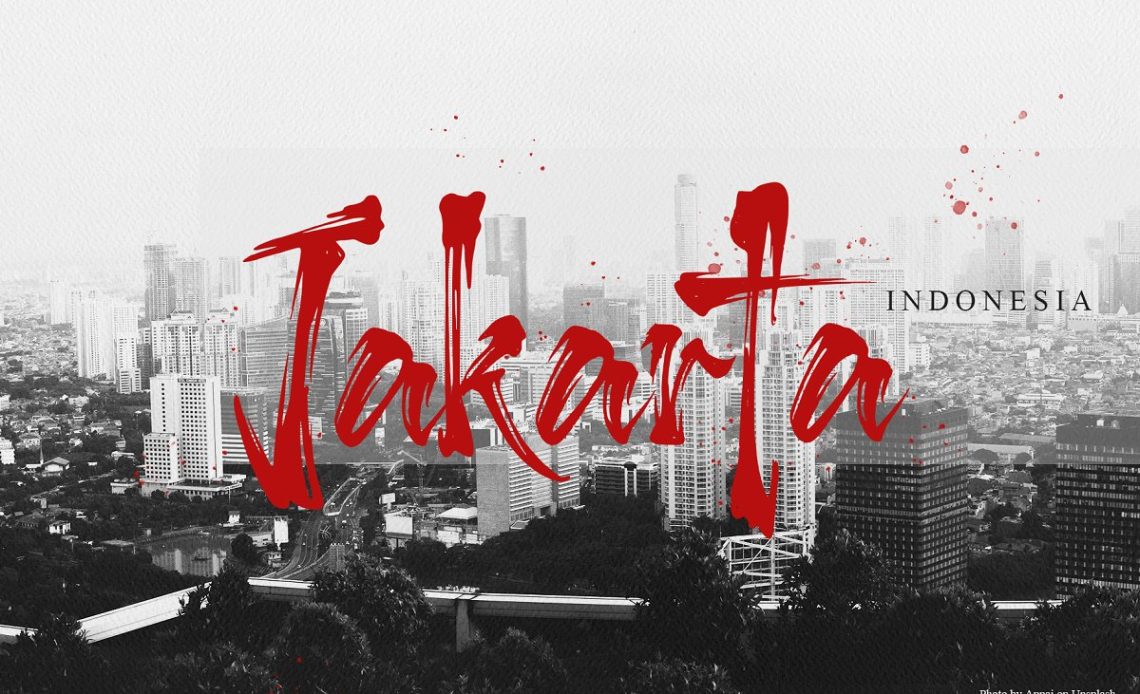
If you're looking for a font that will make your words come alive, look no further than Harukaze Brush Font. Created by the talented Andrie Nugrie, this font family is perfect for anyone who wants to add a touch of traditional Japanese calligraphy to their work. With its bold, powerful feel and brush-style display, Harukaze is sure to make your words stand out.
Harukaze Brush Font is not your average script font. It's a Font For Calligraphy that will take your designs to the next level. Whether you're designing a logo, creating a poster, or just adding some text to your website, this font will make your work look stunning.
But what really sets Harukaze apart is its emotional appeal. It's a font that speaks to the heart and soul of anyone who appreciates the beauty of traditional calligraphy. Whether you're looking to evoke a sense of calm, power, or passion, this font can help you do it.
So why not take your designs to the next level with Harukaze Brush Font? With its captivating beauty and powerful emotional appeal, it's the perfect choice for anyone who wants to make their words stand out.